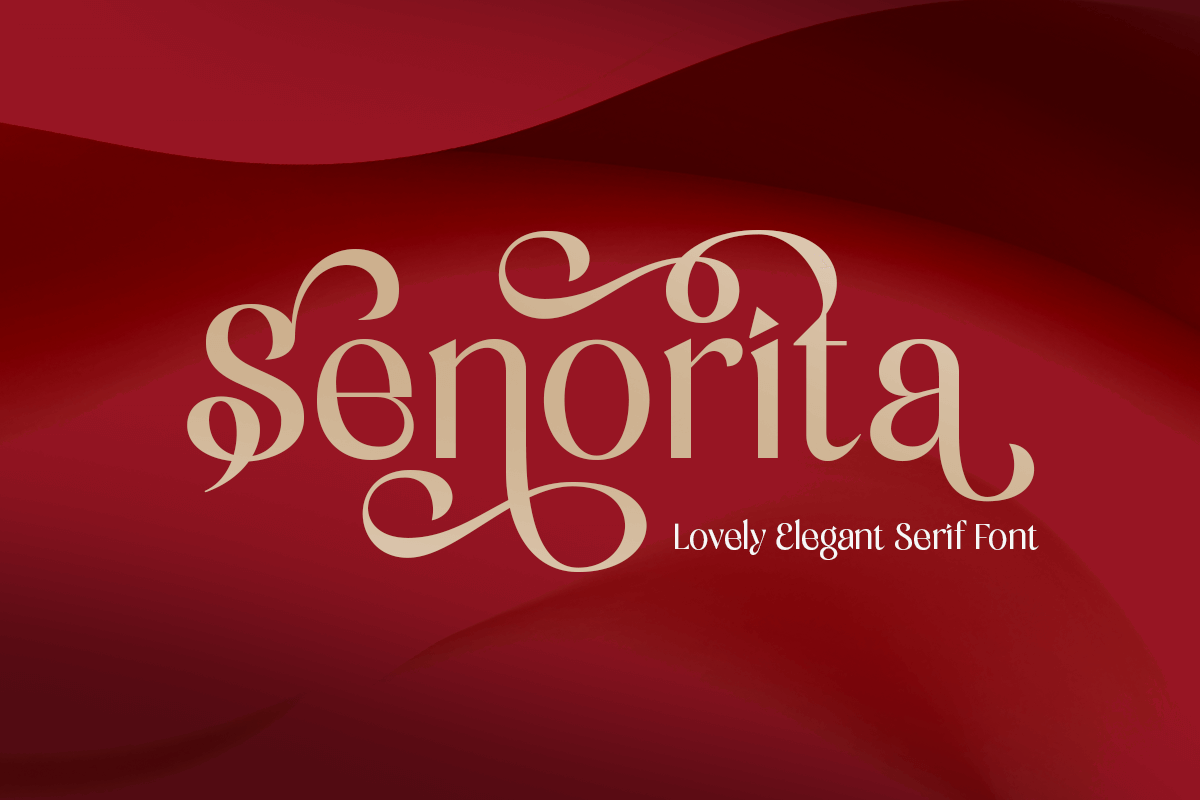
Senorita
-Lovely Elegant Serif Font
Senorita - Lovely Elegant Serif Font
Senorita is a lovely and elegant serif font that exudes grace, sophistication, and timeless beauty. With its delicate curves and refined letterforms, this typeface is perfect for luxury branding, wedding invitations, fashion editorials, beauty products, and high-end packaging.
Designed for romantic and stylish designs, Senorita font blends classic charm with modern elegance. Its high-contrast strokes and subtle details add a touch of femininity and sophistication, making it ideal for logos, elegant headlines, magazine layouts, and creative typography projects.
Senorita Font - Lovely Elegant Serif Font Features:
• Elegant and stylish serif design
• Punctuation, numbers, and symbols included
• Uppercase and lowercase letters
• OpenType features for added versatility